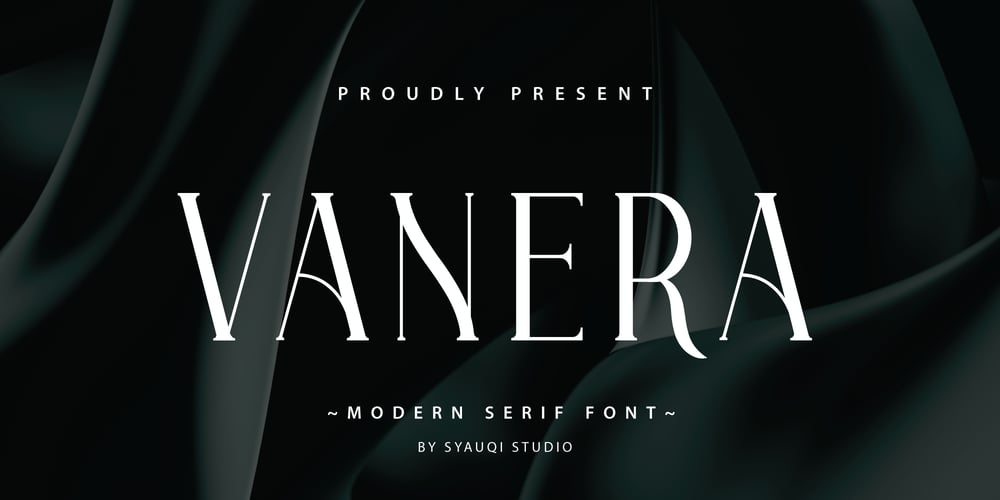
Vanera Font Family was designed by Muhammad Asroful Umam and published by Syauqi Studio. Vanera contains 4 styles and family package options. Introducing, this is our newest product, we call it Vanera.Vanera is a serif font that comes with very beautiful changing characters that will bring in your projects a touch of luxury and style.The modern style is perfect to be applied in various formal forms such as invitations, labels, restaurant menus, logos, fashion, branding, make up, stationery, novels, magazines, books, greeting / wedding cards, packaging, labels or any type of advertising purpose.Features: Style: Regular, Italic, Bold, Bold Italic All Caps Font Number & Punctuation Alternates Multilingual Support To fully access the font’s features, we recommend using programs that support OpenType features. This will allow you to access glyphs directly on the same panel without copy/pasting each glyph. Additionally, the OpenType panel allows you to turn on standard ligatures, which can automatically change letters for available ligatures.Thank you, Best regardsSyauqi Studio